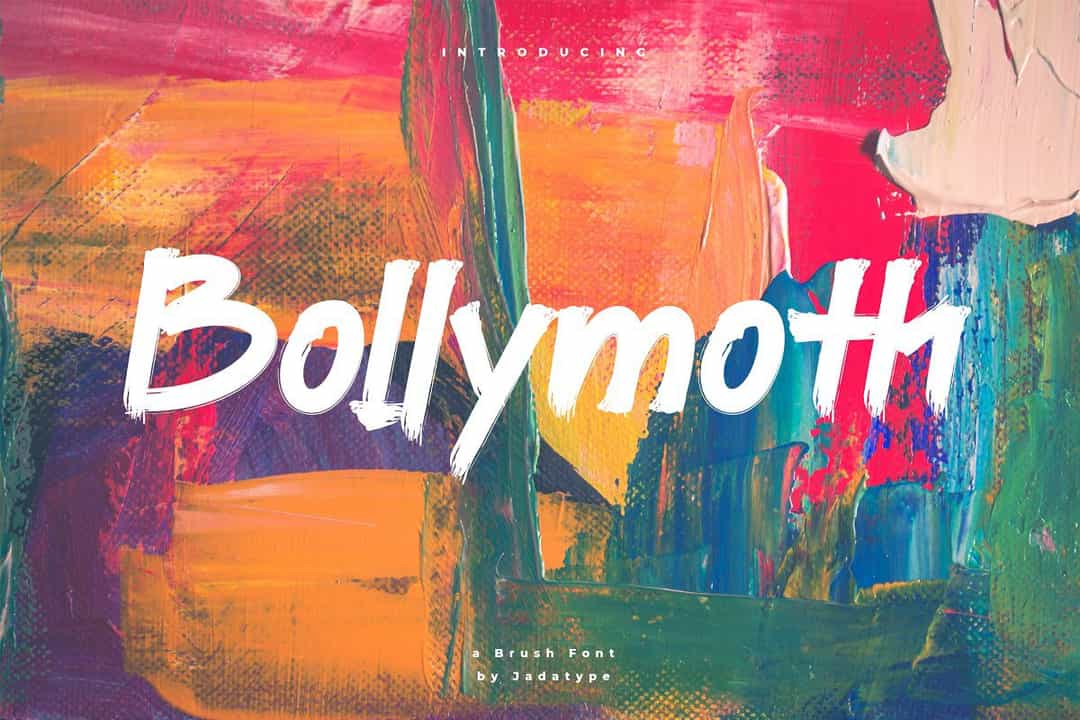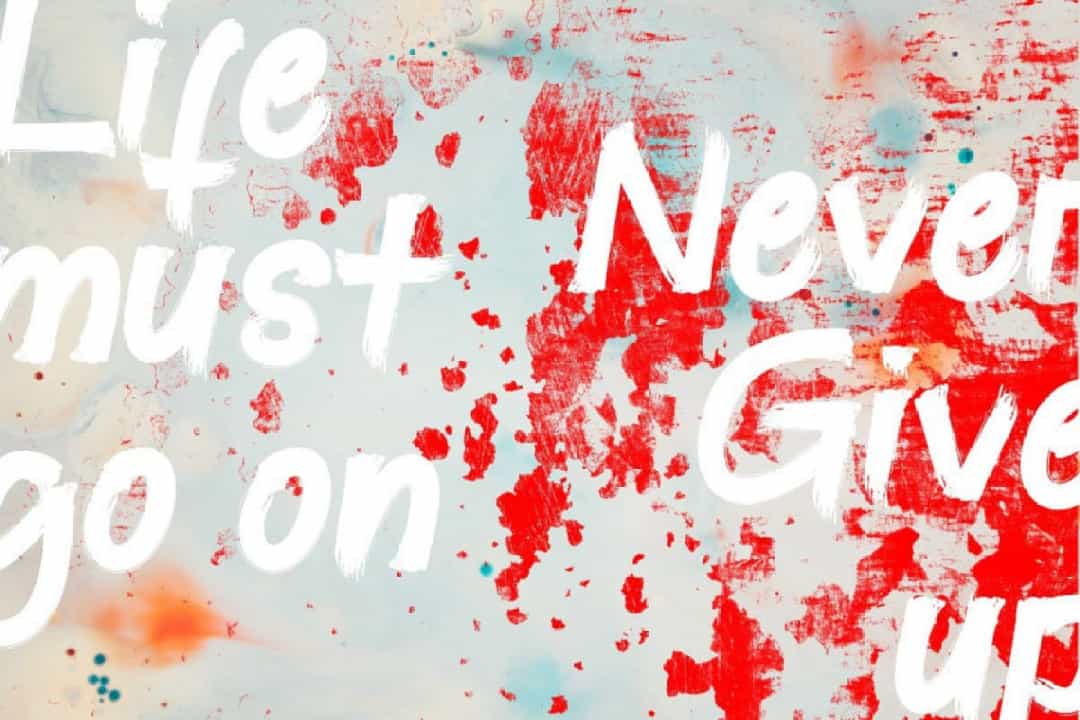
Bollymoth is an open-type font with brush outline that conveys fun or joy, motion and youth, along with conveying happiness. This font can be utilized for designing on T-shirts, crafts or events and its fonts are standard English alphabets punctuation ligatures; making it compatible with Adobe Family or affinity programs.